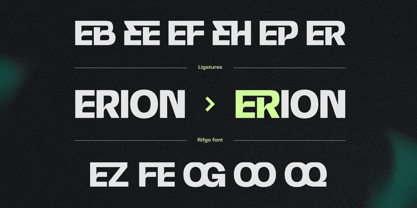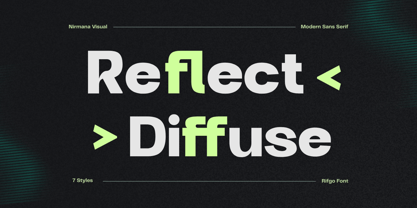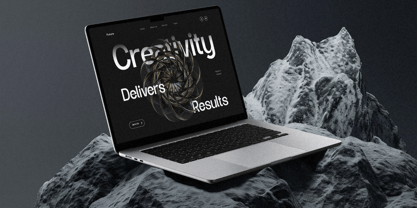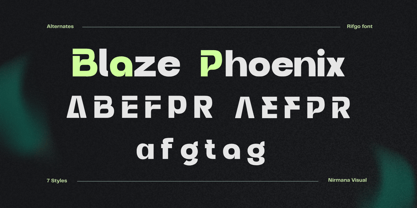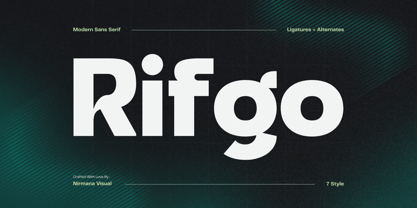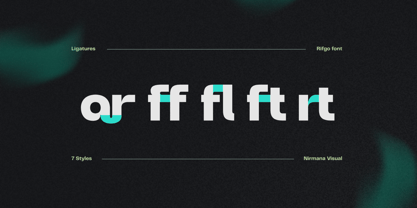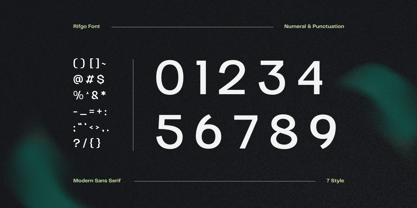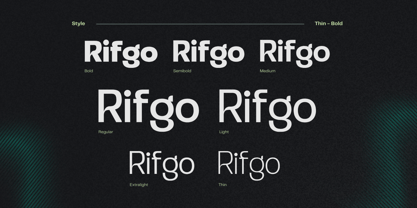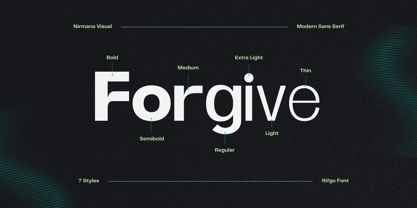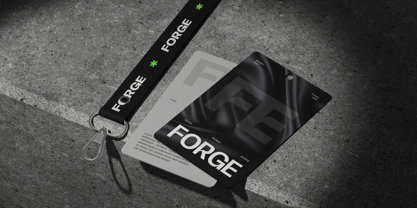
Modern Rifgo
by Nirmana Visual
The Modern Rifgo Font Family was designed by Sigit Dwipa and published by Nirmana Visual. Modern Rifgo contains 7 styles and family package options. More about this family
Rifgo is a modern sans serif font family crafted for versatility and clarity. Featuring seven styles from Thin to Bold, Rifgo offers a full range of weights to suit any design need—from elegant minimalism to strong, impactful headlines. Clean lines and balanced proportions make it perfect for branding, UI design, and editorial use. With its modern aesthetic and functional style, Rifgo brings a fresh, professional look to any project.
Designers: Sigit Dwipa
Foundry: Nirmana Visual